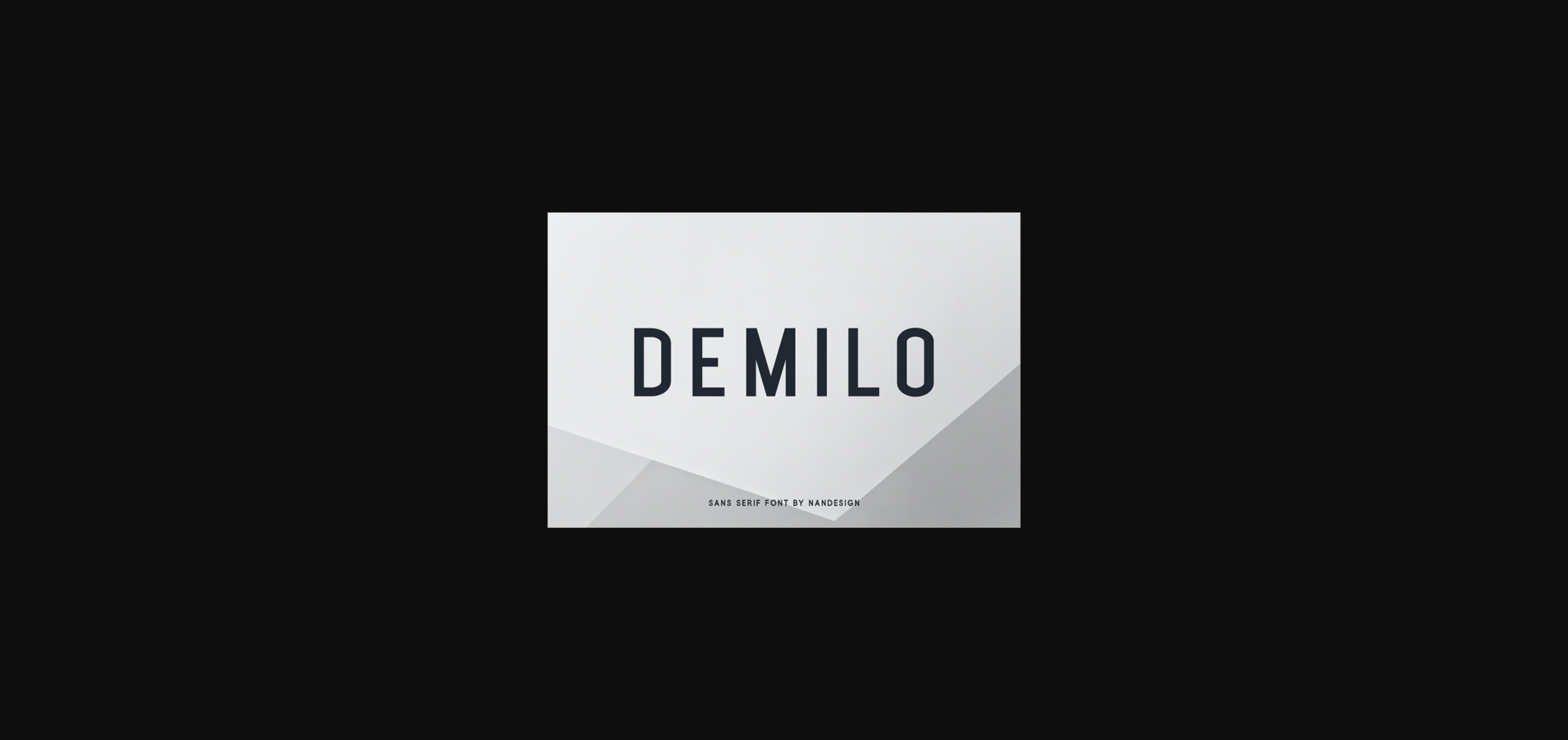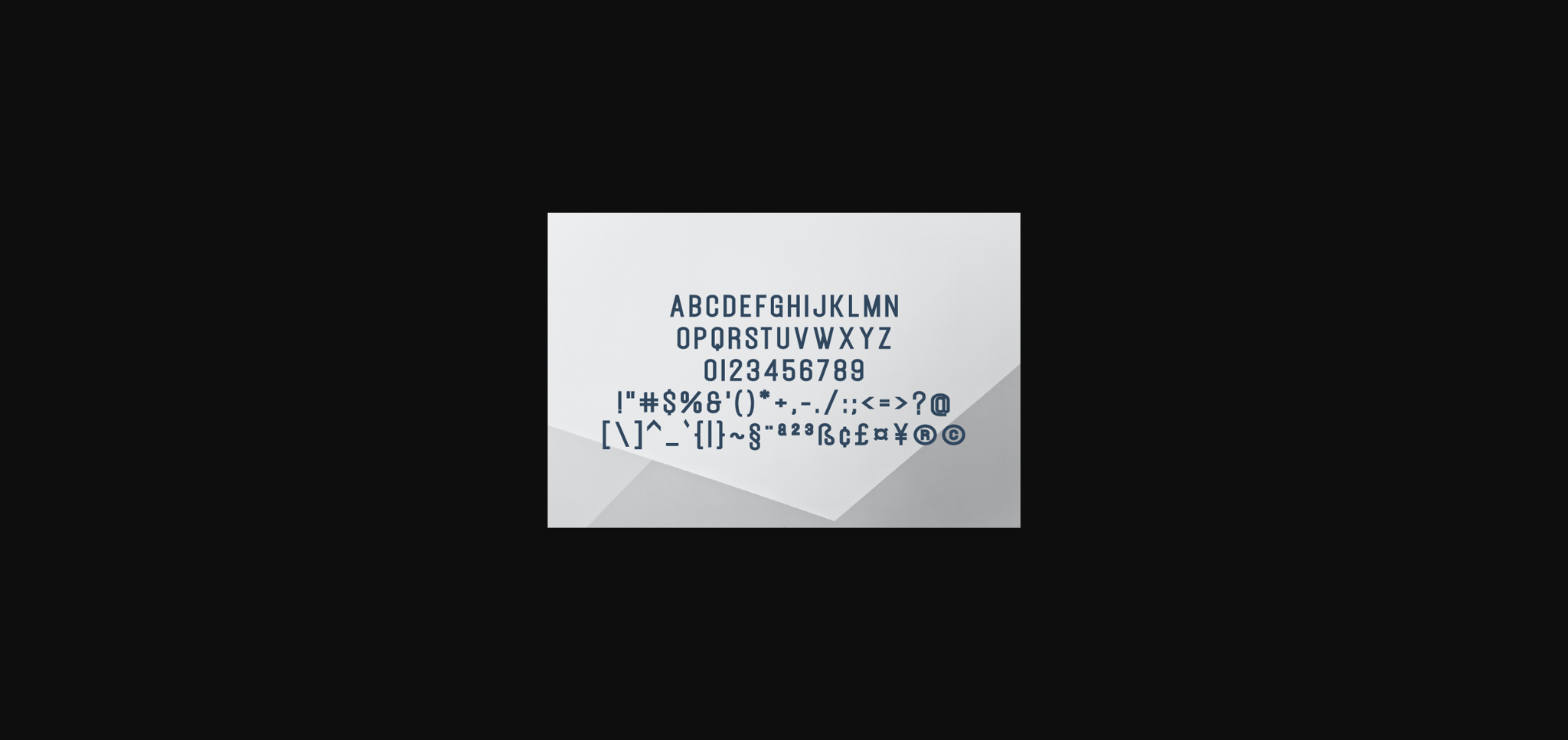
HomeSans Serif FontsDemilo Font Sans Serif Fonts Demilo Font FacebookXPinterestWhatsApp 1 of 4 ... Demilo Font Poster 2... Demilo Font Poster 3... Demilo Font Poster 4... About Demilo Font Demilo is a simple and casual sans serif font with an undeniably clean feel. With its neat and beautiful arrangement of letters, this typeface will look outstanding in both formal and non-formal designs. DOWNLOAD NOW People also explored Blue Dream Font Sushanna + Awsten Cheryl Christmas Font Reguler Font Black Rainbow Font Hello Love Font Bisakha Font Shyness Font Cute Rainbow Font 459 0 TagsDemiloDemilo Font Previous articleModeln FontNext articleDhilove Font LEAVE A REPLY Cancel reply Comment: Please enter your comment! Name:* Please enter your name here Email:* You have entered an incorrect email address! Please enter your email address here Website: Save my name, email, and website in this browser for the next time I comment. Personal Use Free Castina Personal Use Free Read more about this font Nuku Nuku Personal Use Free Read more about this font Talking on Personal Use Free Read more about this font Knox Personal Use Free Read more about this font BLOG How to Install and Use Fonts on Windows, macOS, and Web Projects How to Install and Use Fonts on Windows, macOS, and Web Projects Fonts are a crucial part of design and branding. Whether you’re designing a... Modern Sans-Serif Fonts That Brands Love in 2025 Where to Buy American Fonts Online in 2024 Elegant Wedding Invitation Fonts – Handwritten & Script Fonts